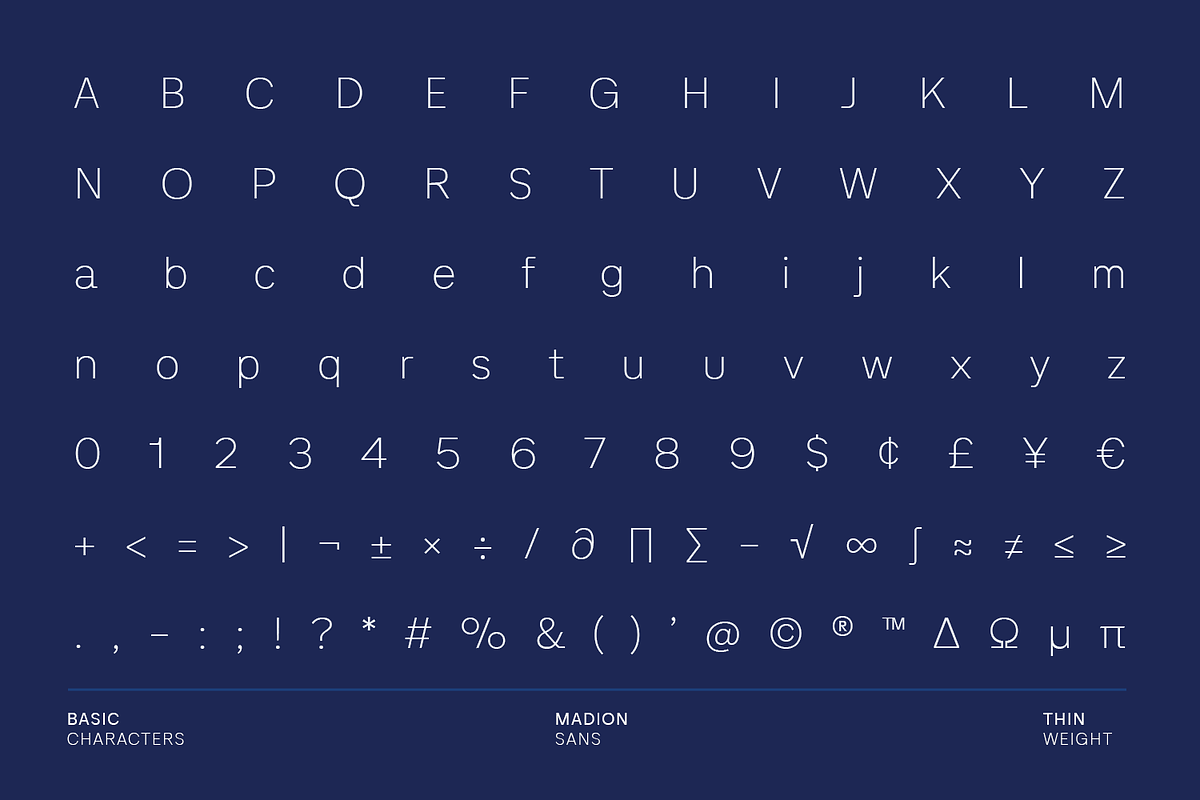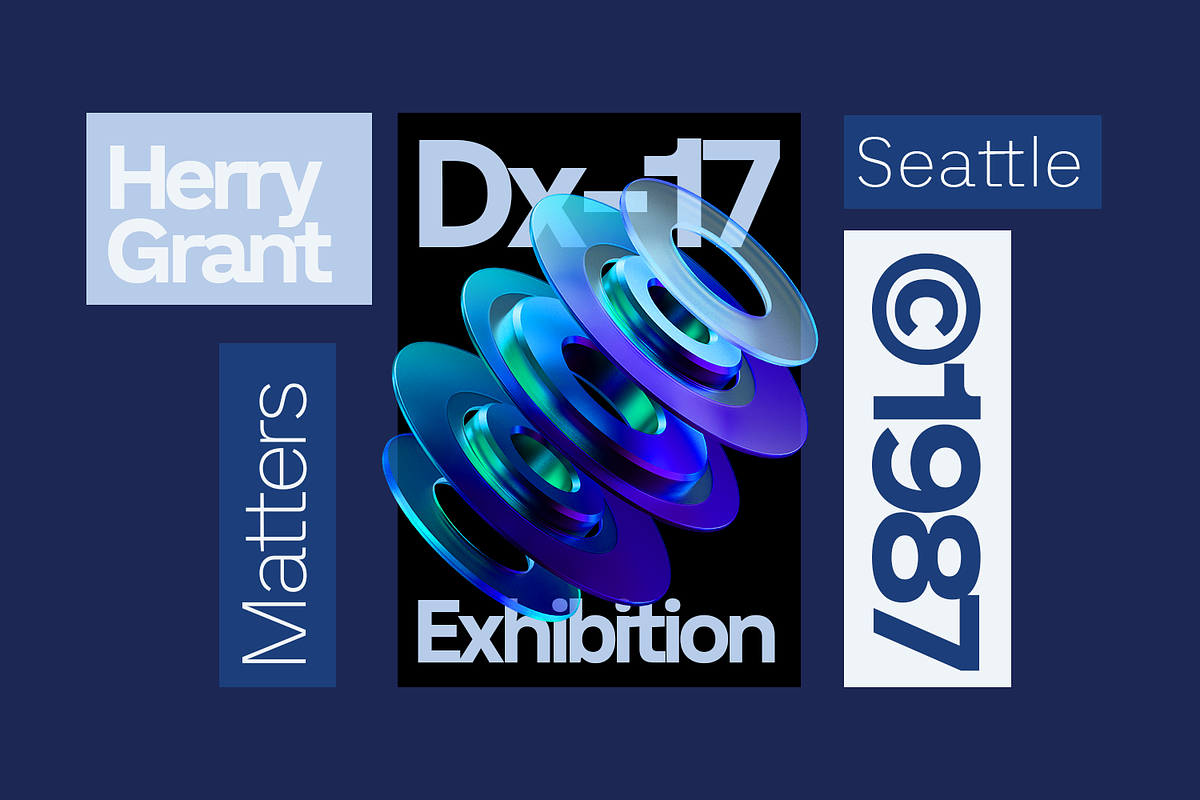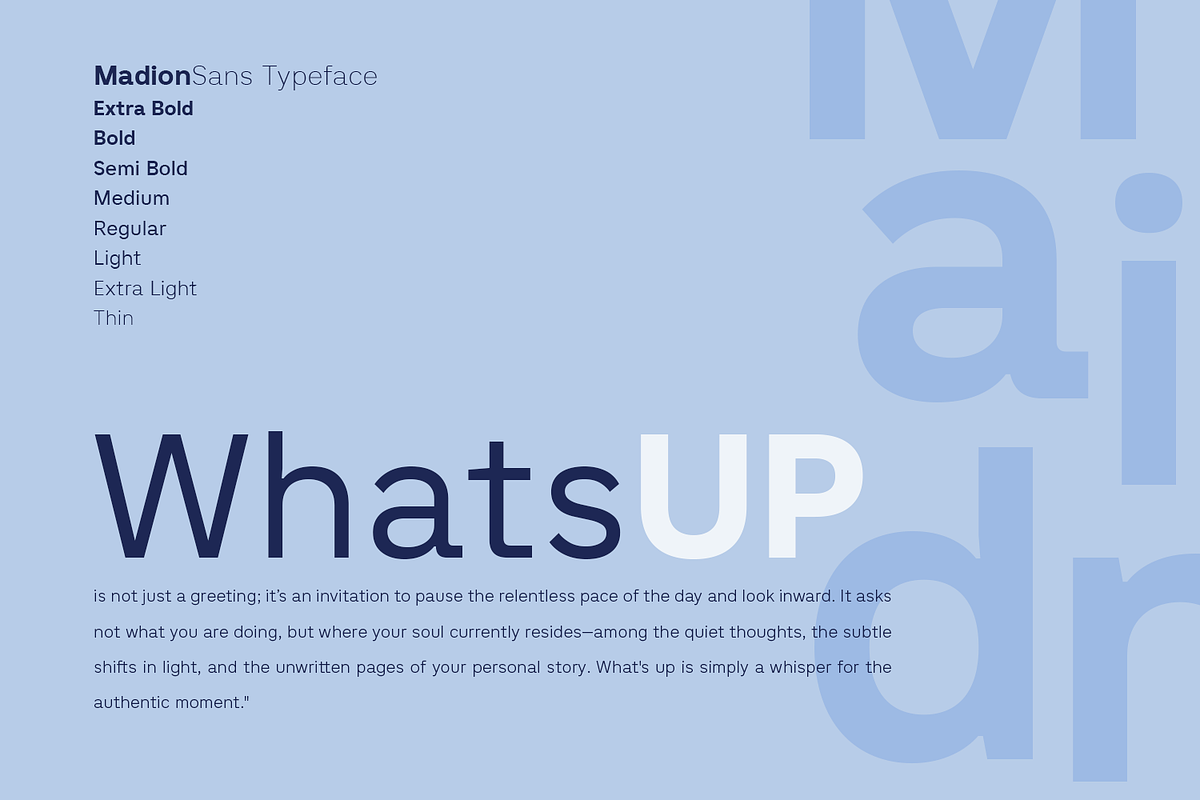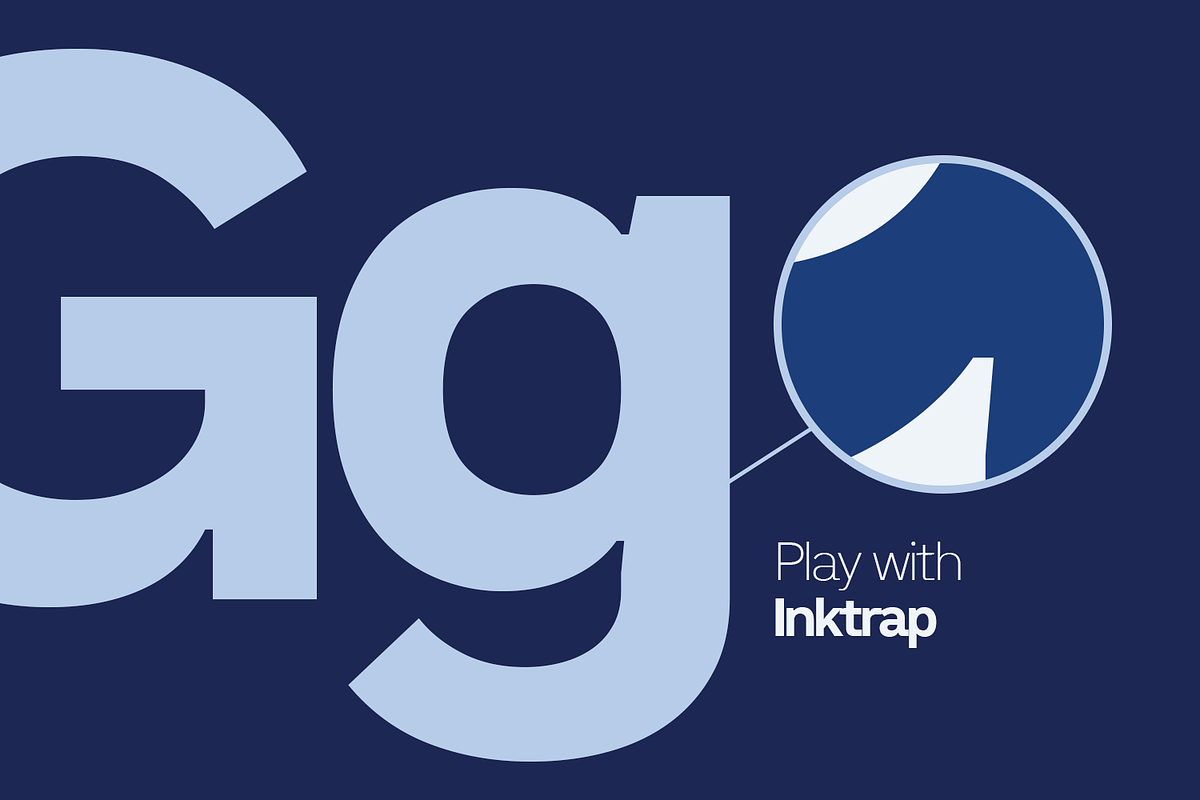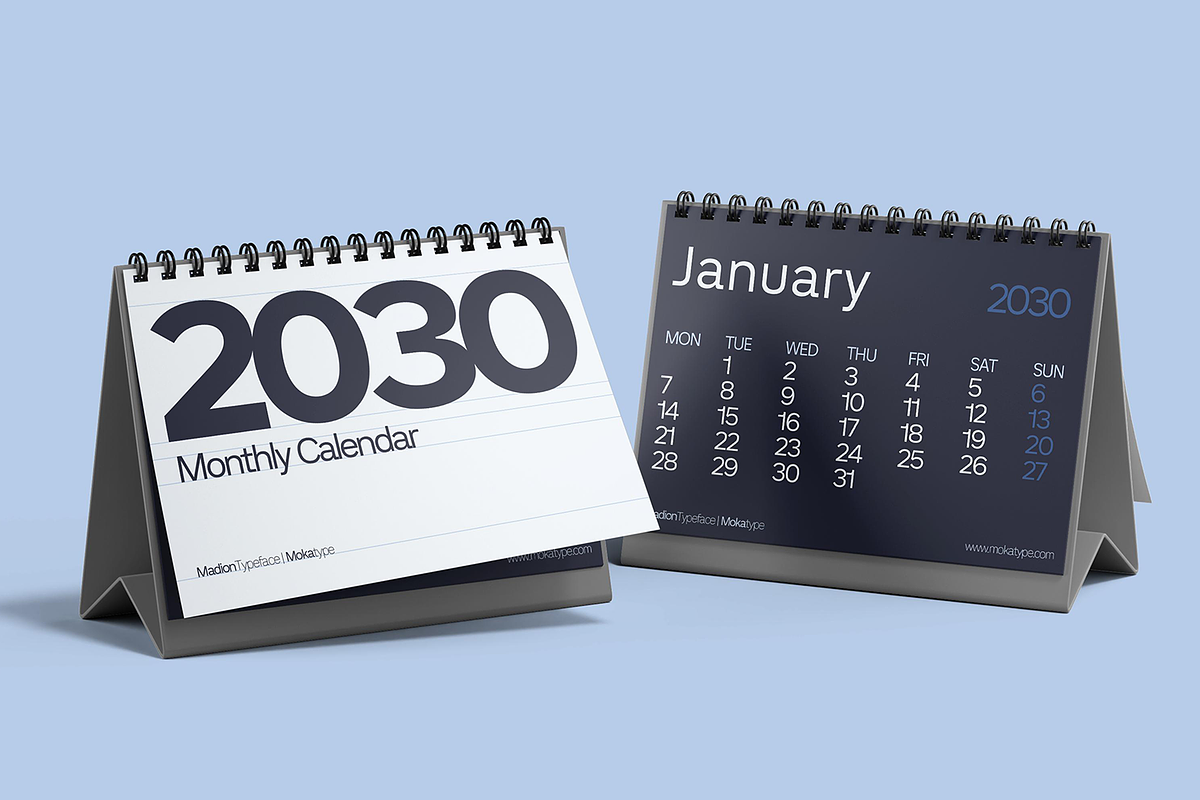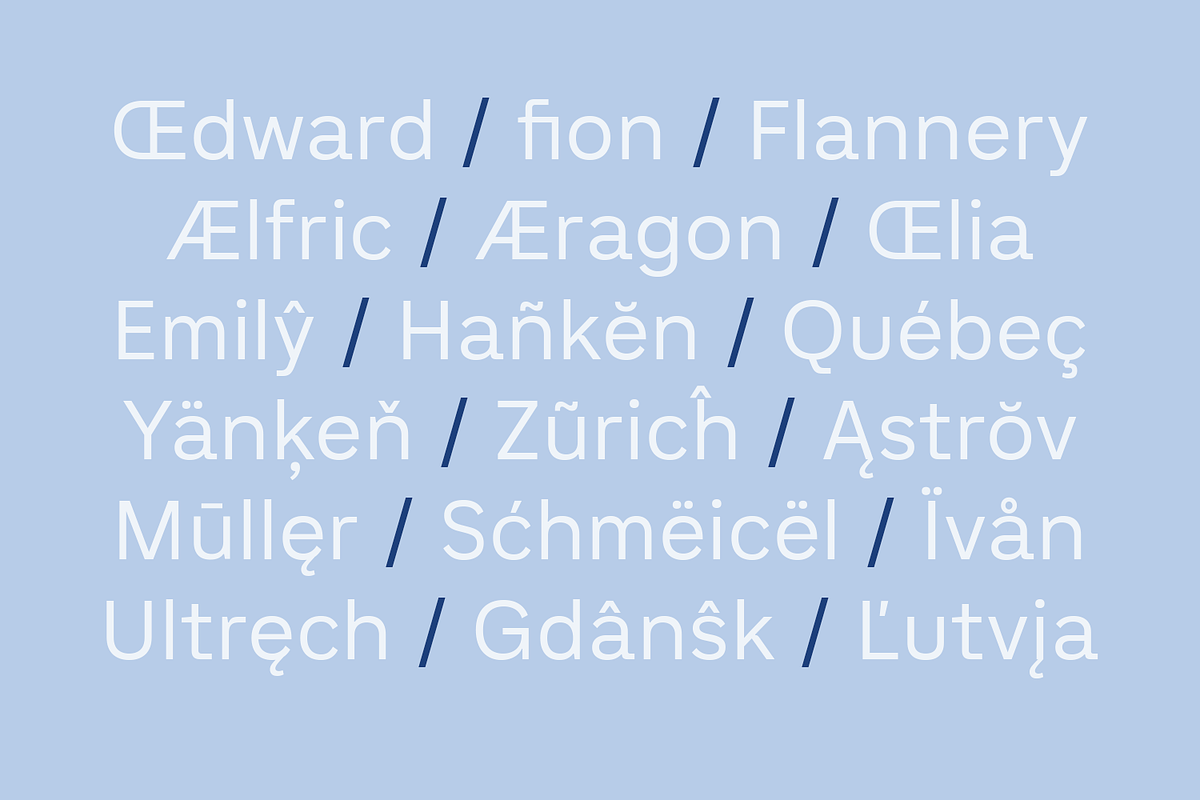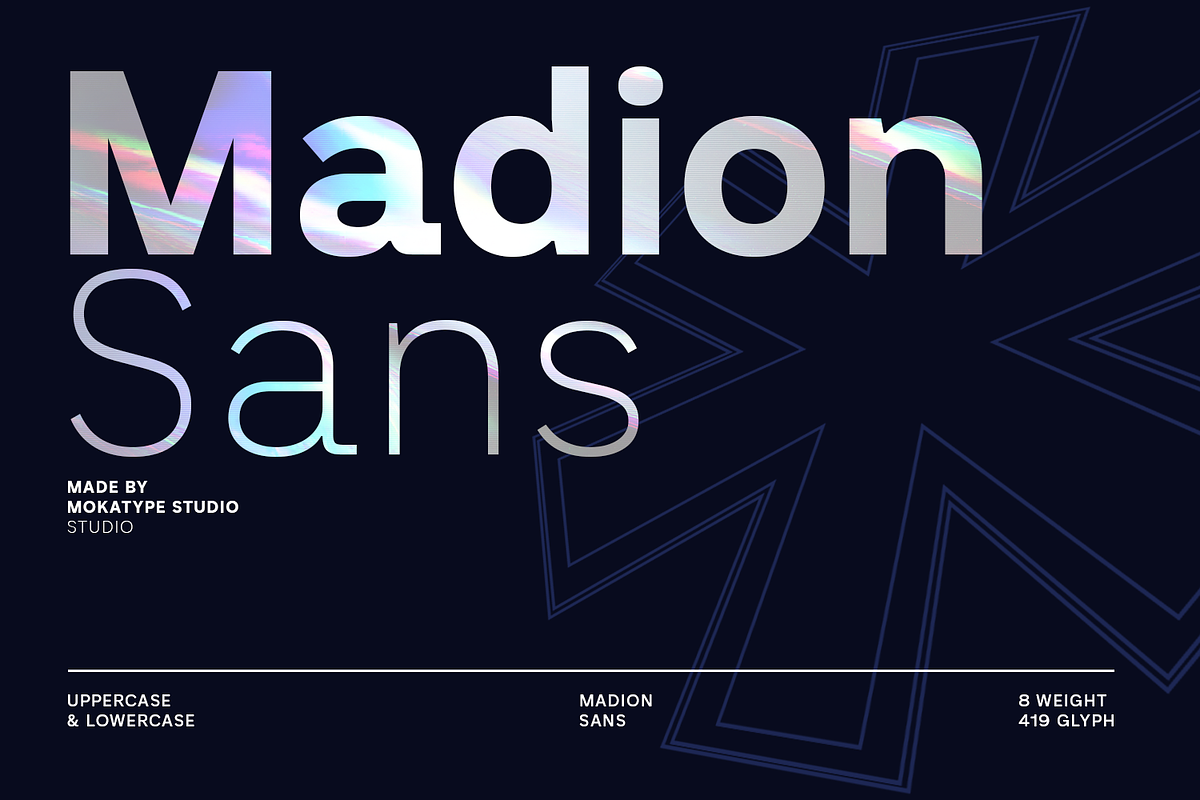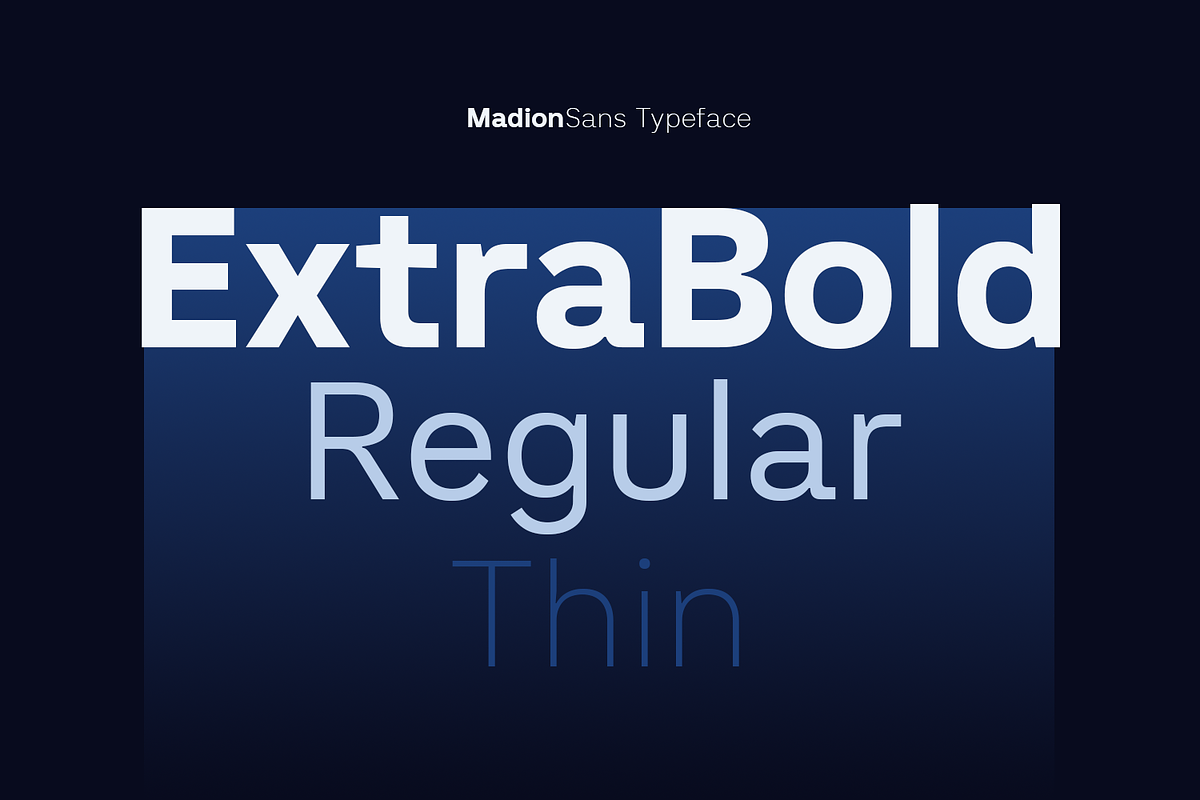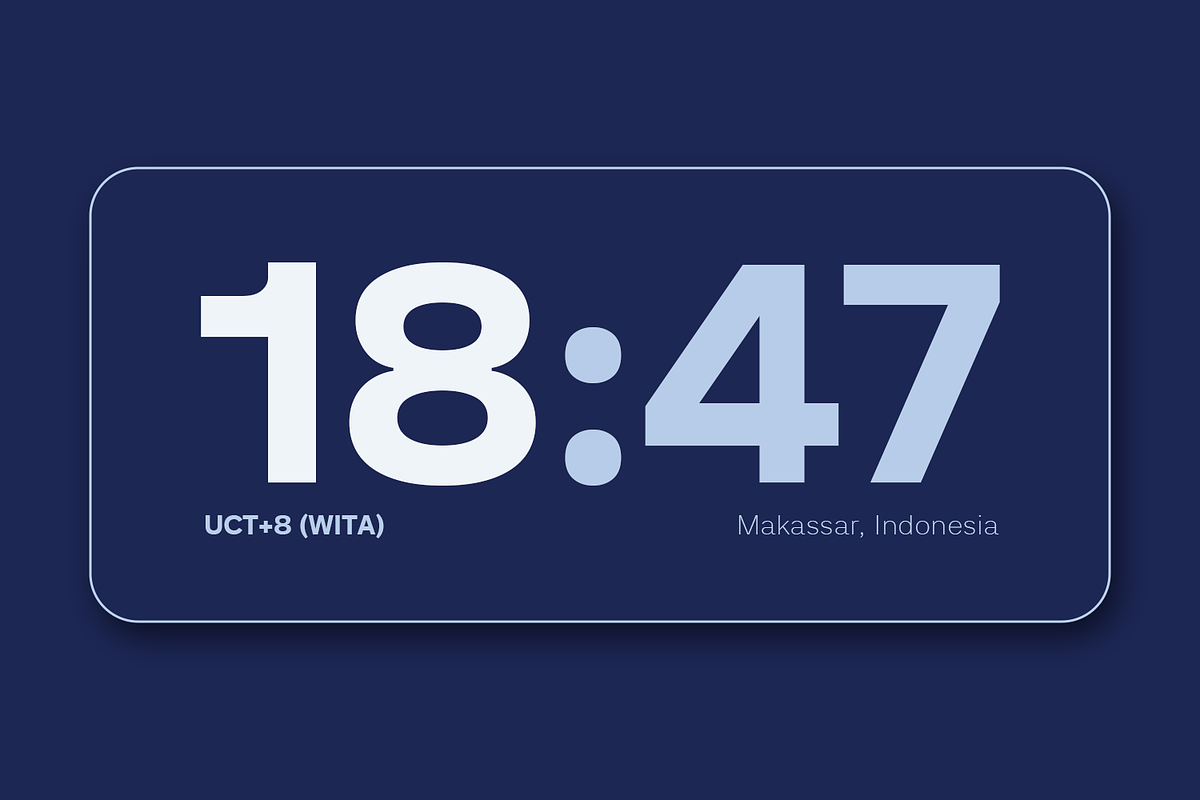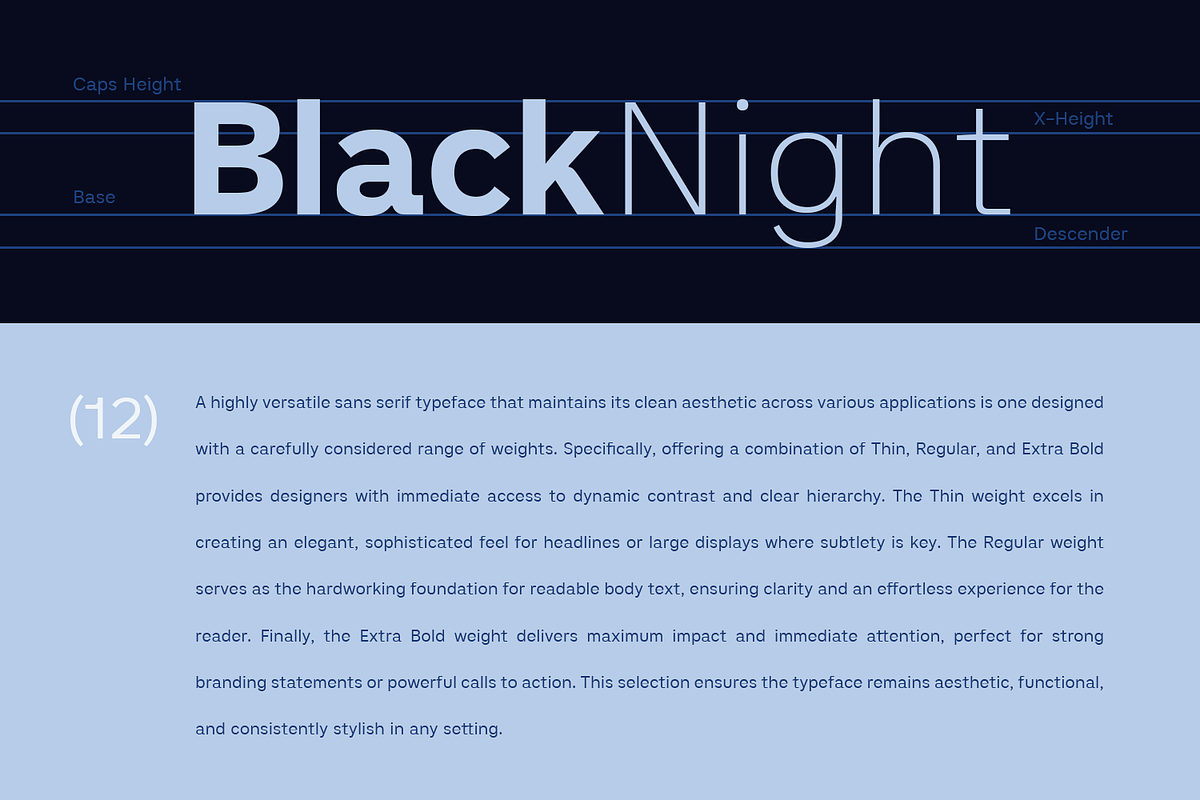
Madion Sans -Modern Formal Sans
Madion is a modern geometric sans-serif designed for clarity, structure, and forward-thinking brands. With 8 carefully balanced weights, it bridges the gap between futuristic aesthetics and timeless functionality. Clean lines and refined geometry give it a professional tone that fits seamlessly into UI design, web interfaces, corporate branding, and editorial layouts.
From minimal logotypes to precise interface text, Madion adapts effortlessly—its lighter weights bring elegance to body copy, while bold styles deliver strong, confident headlines. Each letterform is engineered for smooth rhythm and optimal legibility across digital and print environments.
Perfect for: UI/UX design, web design, branding systems, corporate identities, editorial, and digital products.
Style & Feel: geometric • formal • futuristic • versatile
8 weights from Thin to Black, with matching italics
Geometric construction with smooth optical balance
Optimized kerning for display & text sizes
Proportional and tabular figures
Multilingual Latin support
Design Tips
Combine light and bold weights for dynamic visual hierarchy
Pair with a serif or humanist sans for editorial contrast
Perfect for minimal interfaces, clean tech branding, and design systems